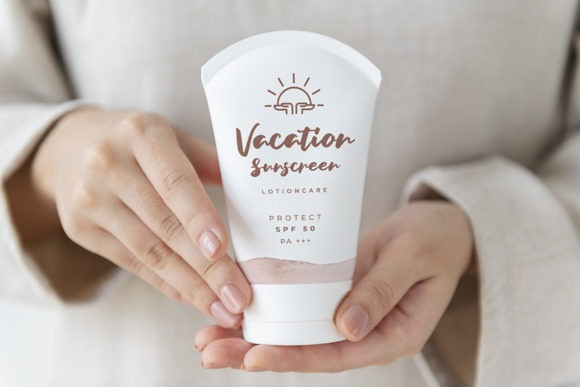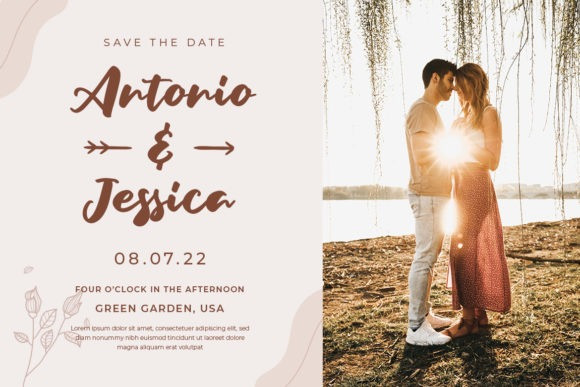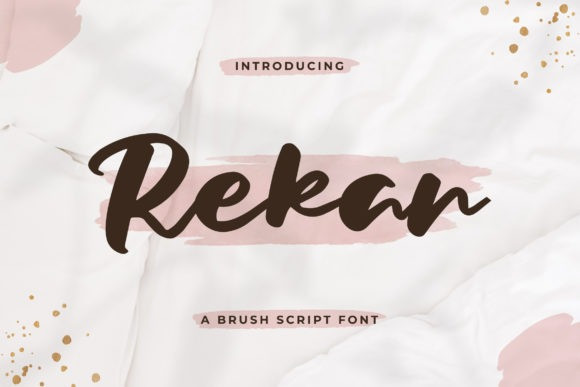
Rekan Script Font
Rekan Script Font is a magical script font carefully created with a touch of elegance. Whether you’re looking for fonts for Instagram or calligraphy scripts for DIY projects, this font will turn any creative idea into a true piece of art!